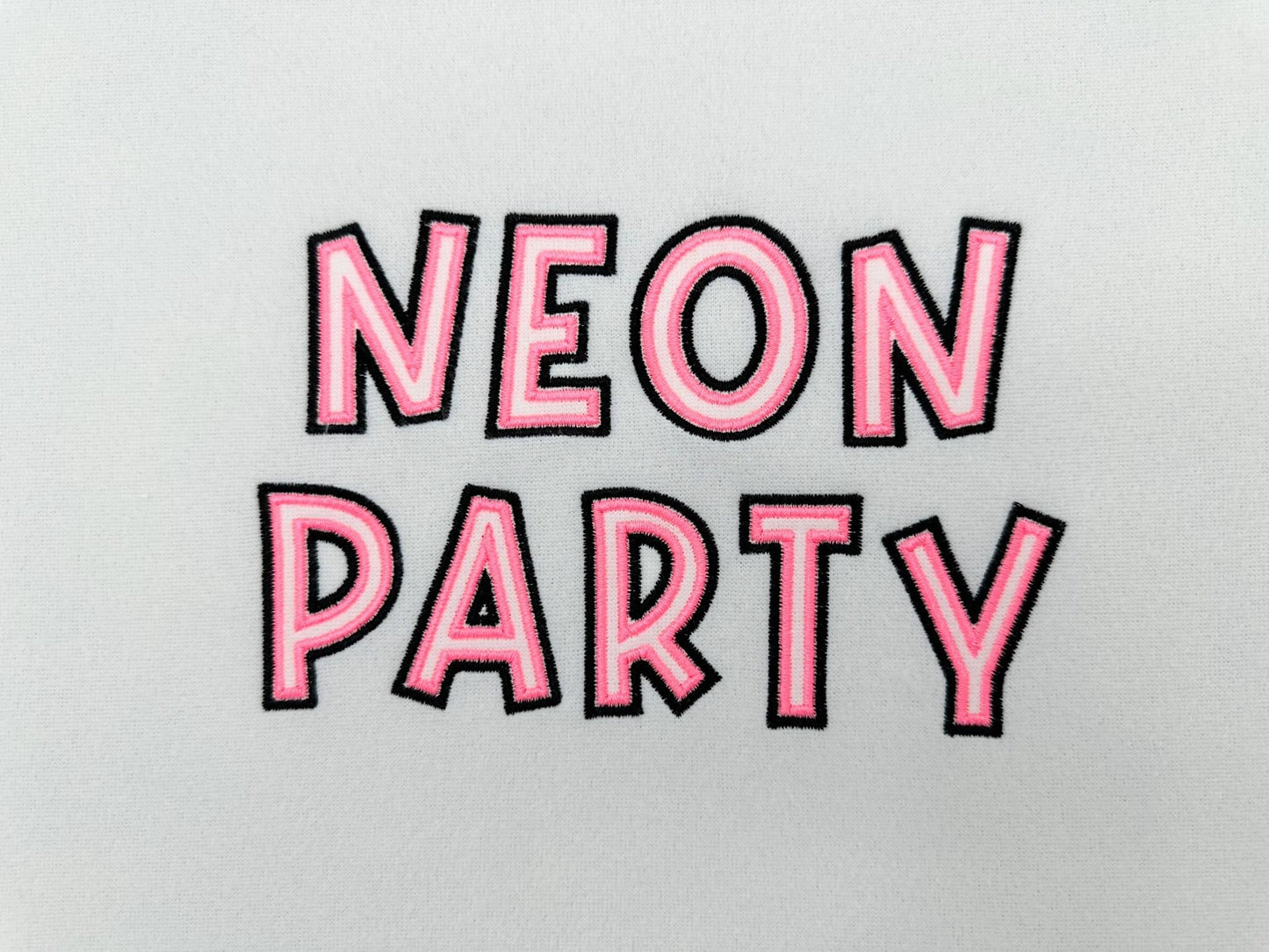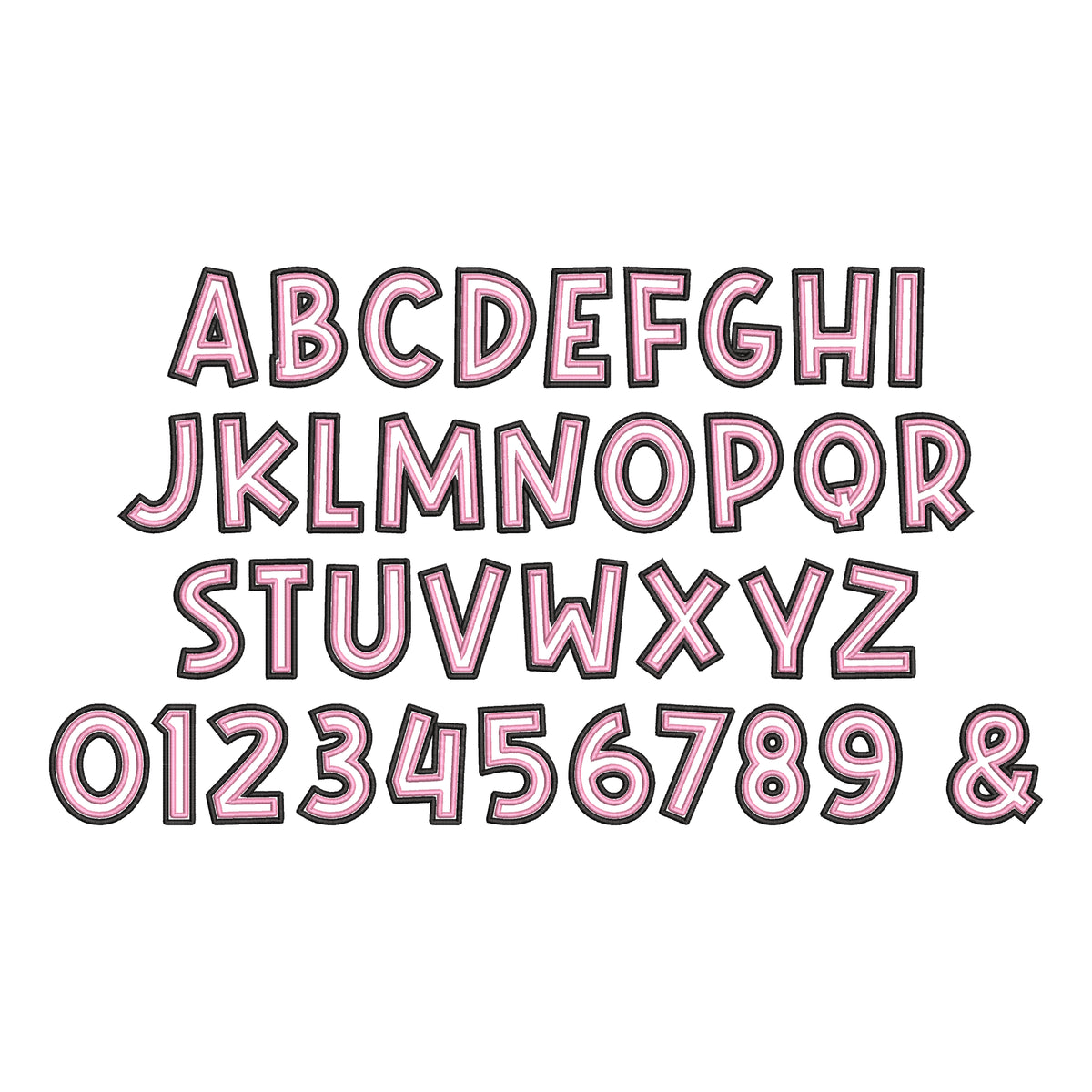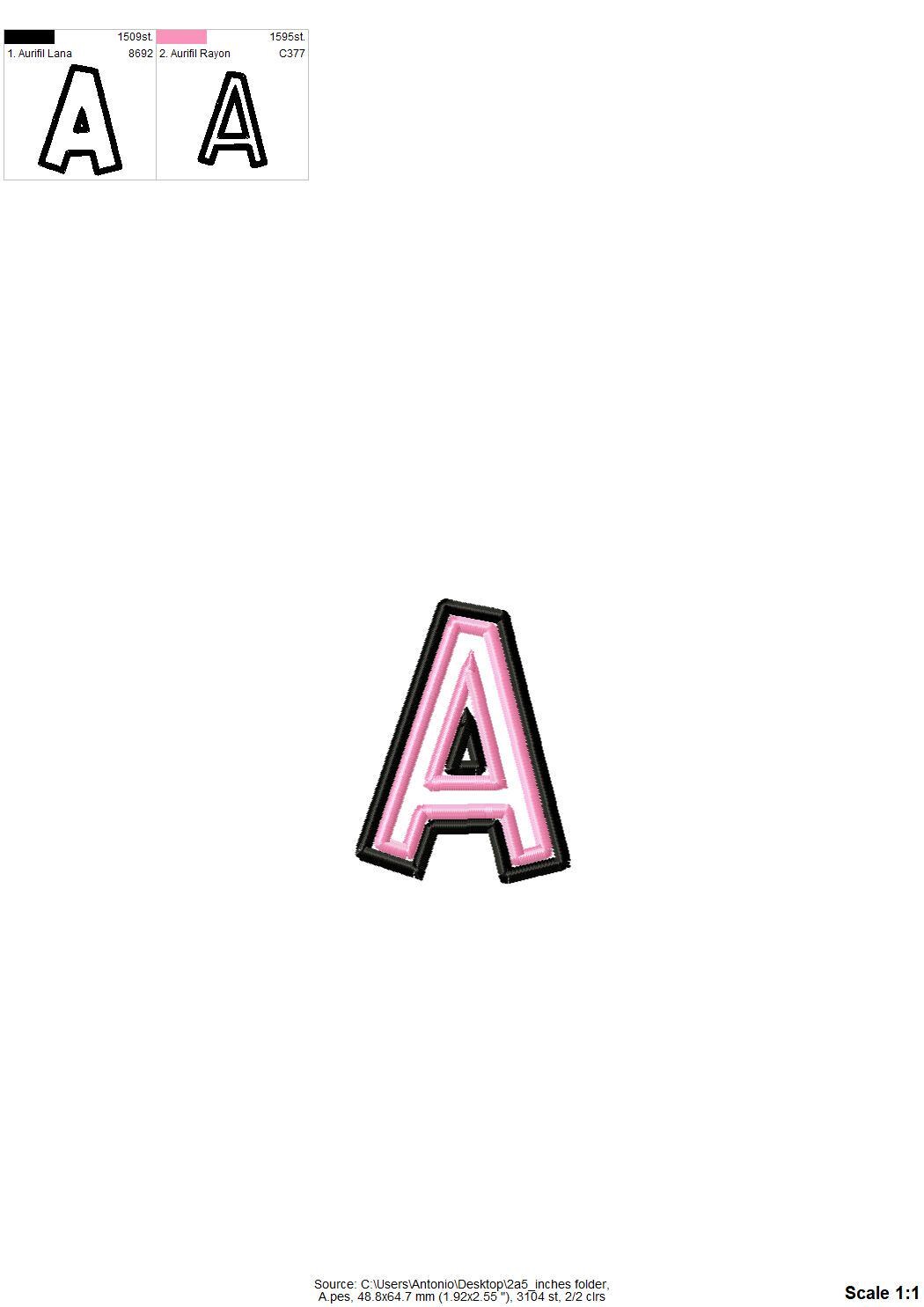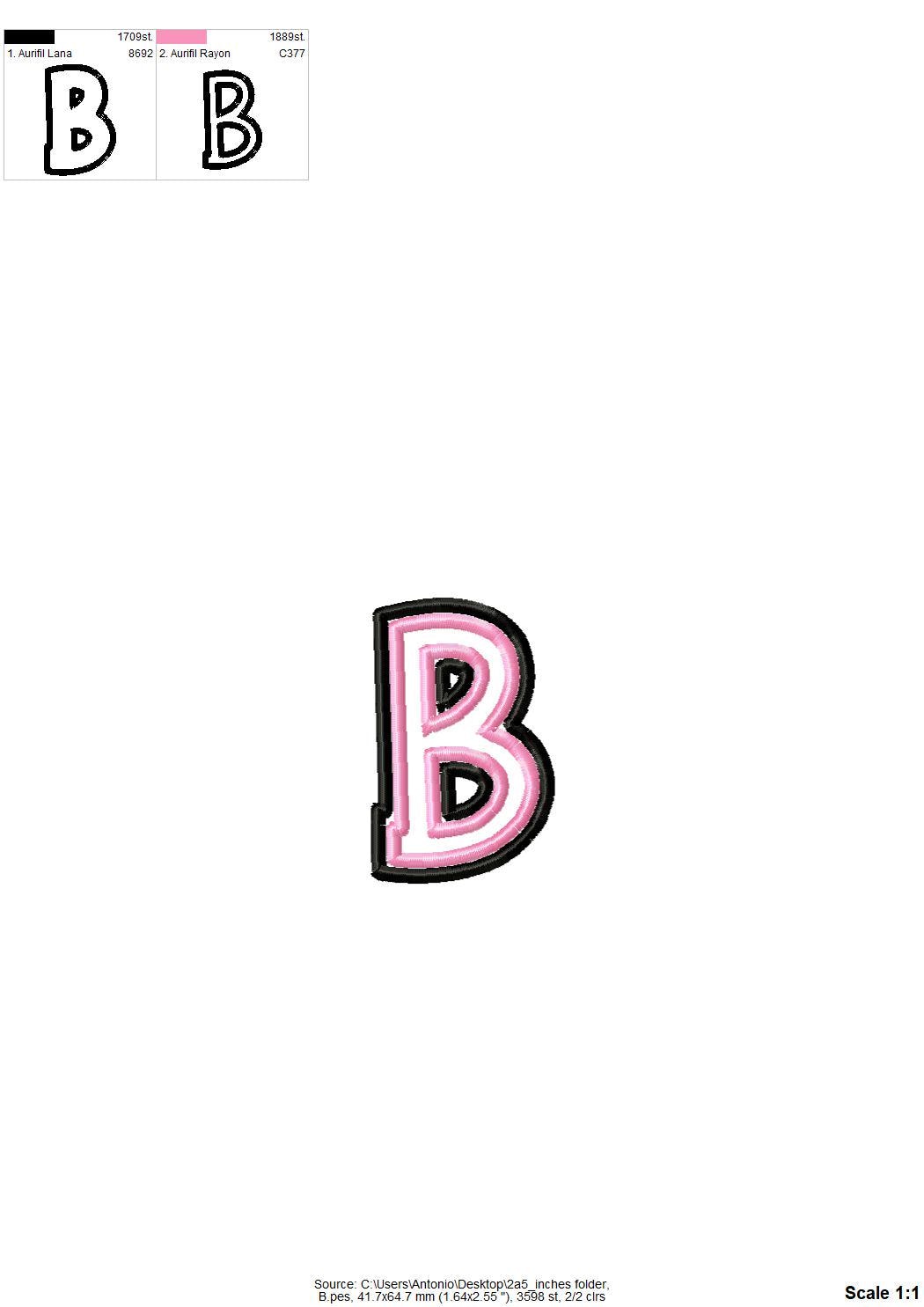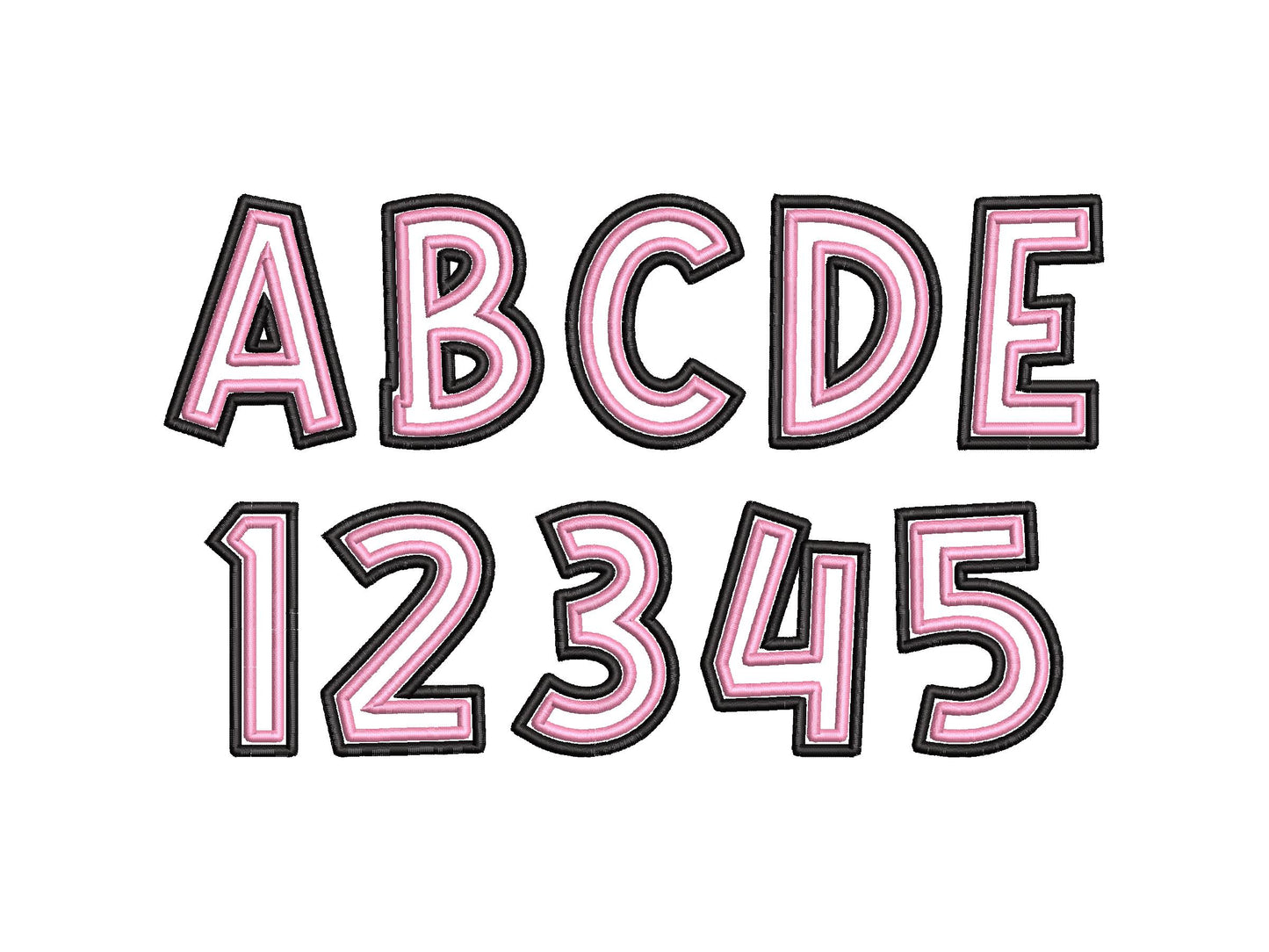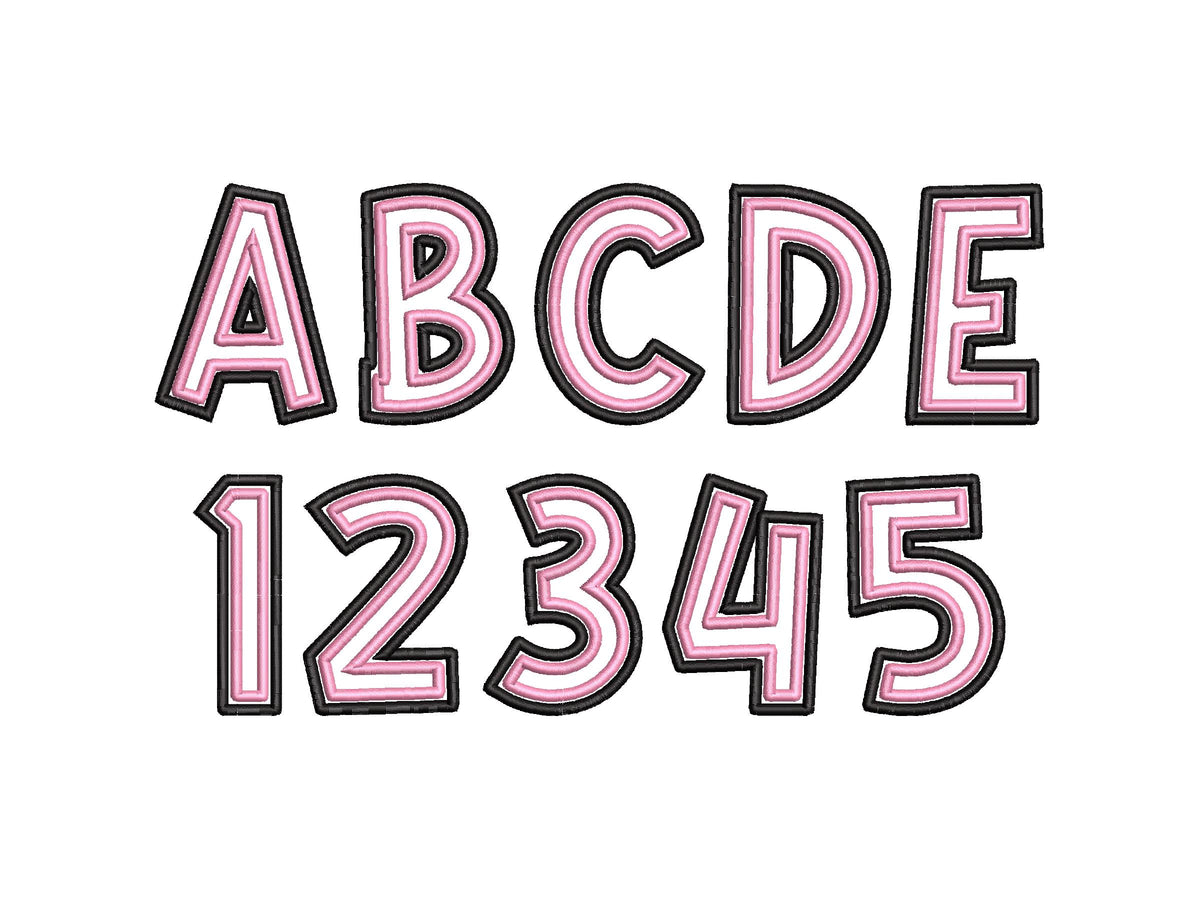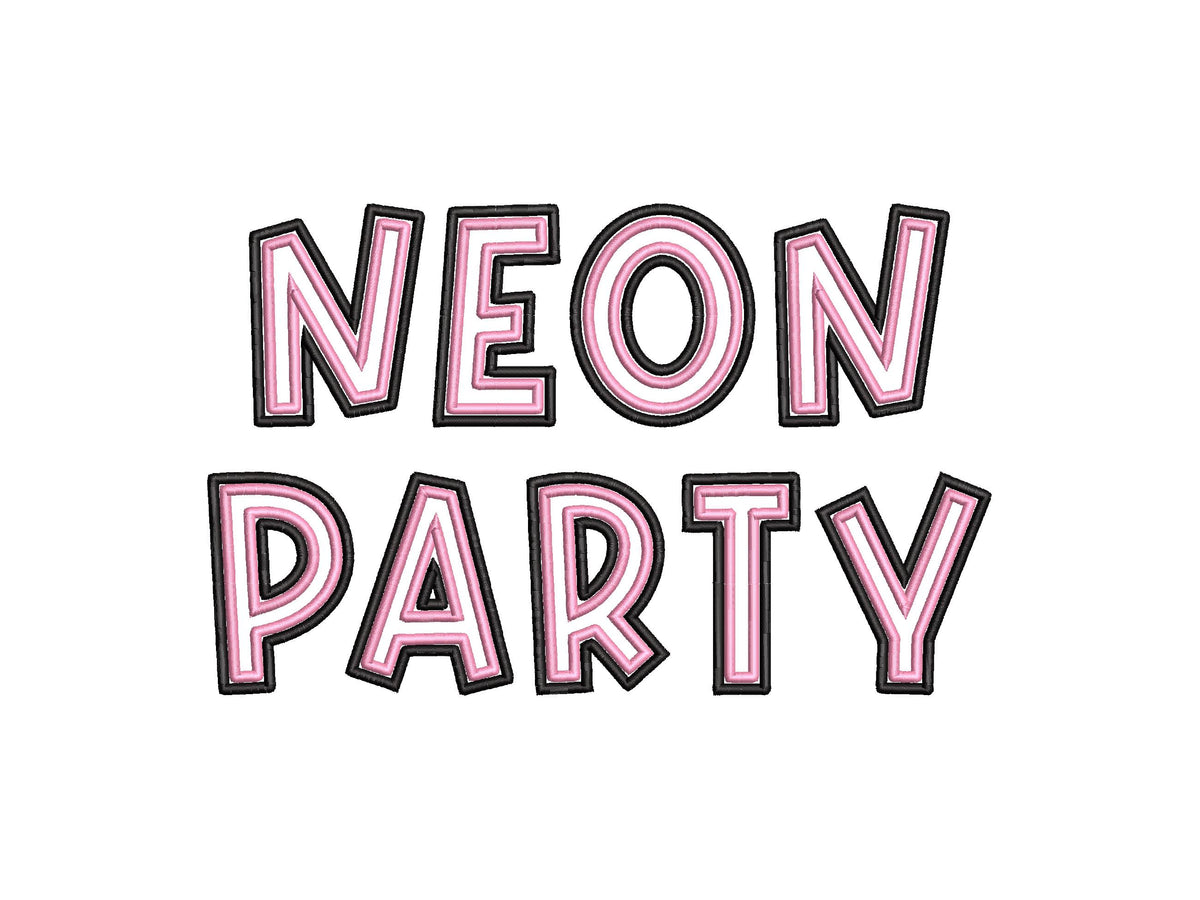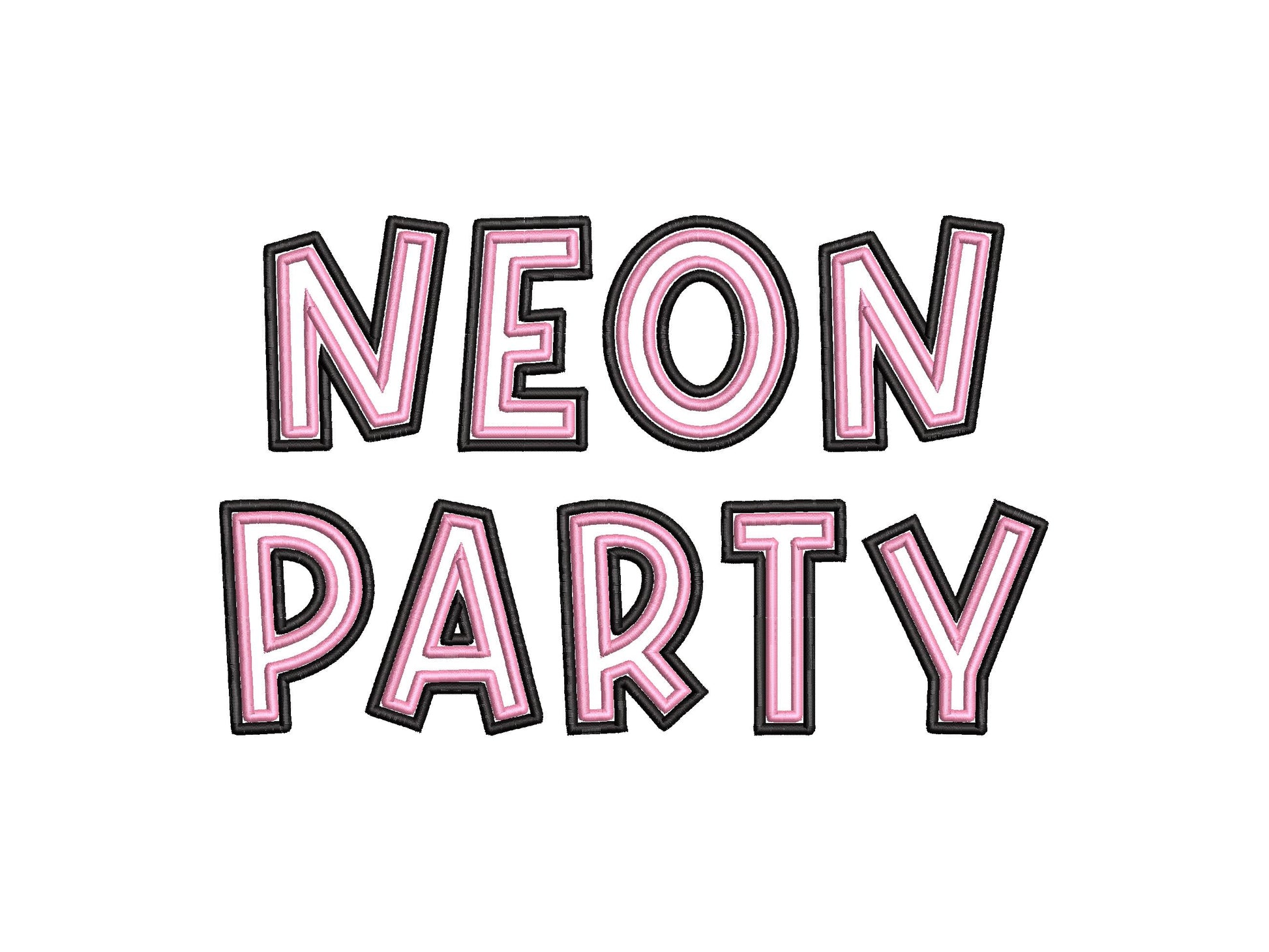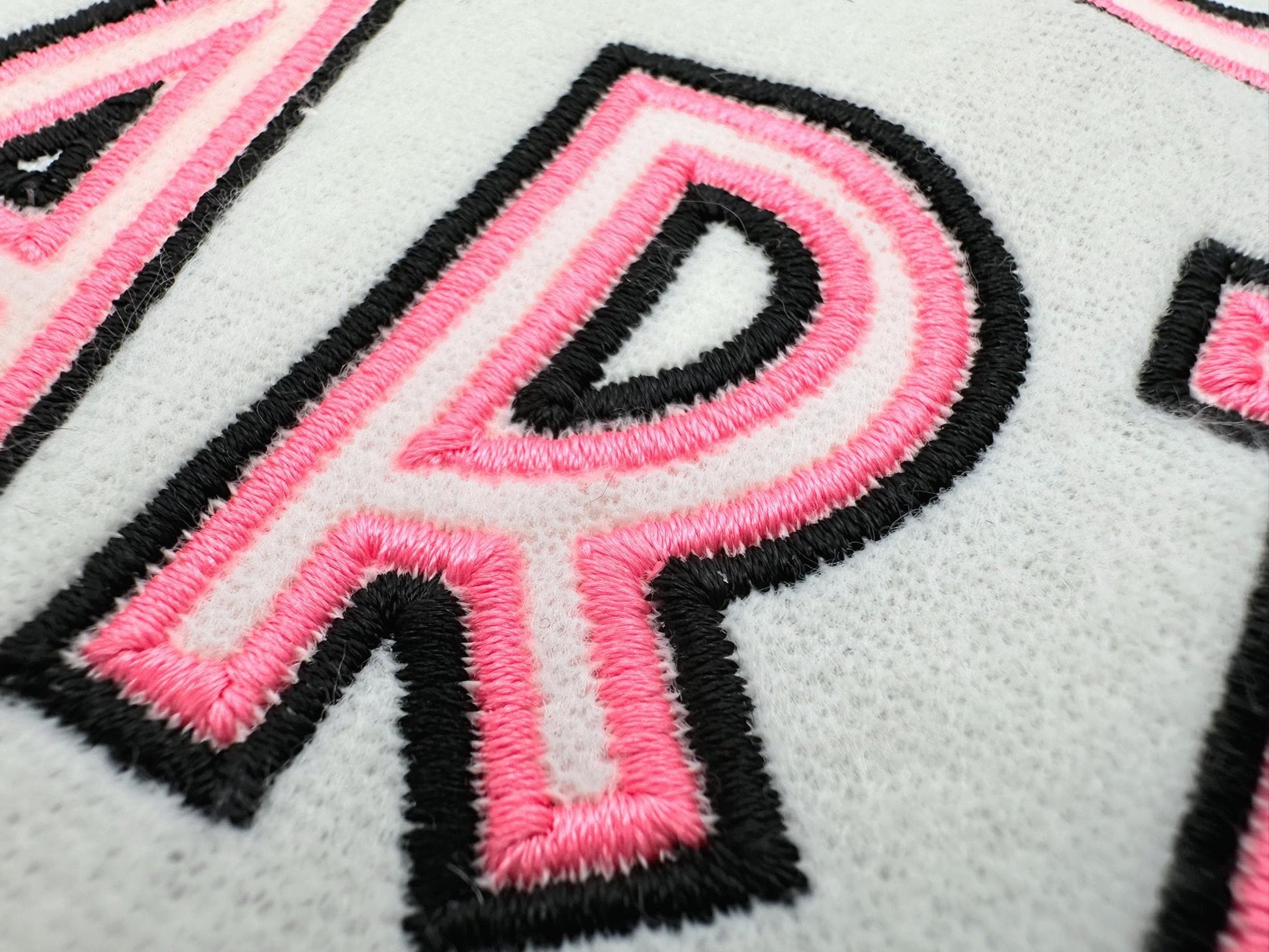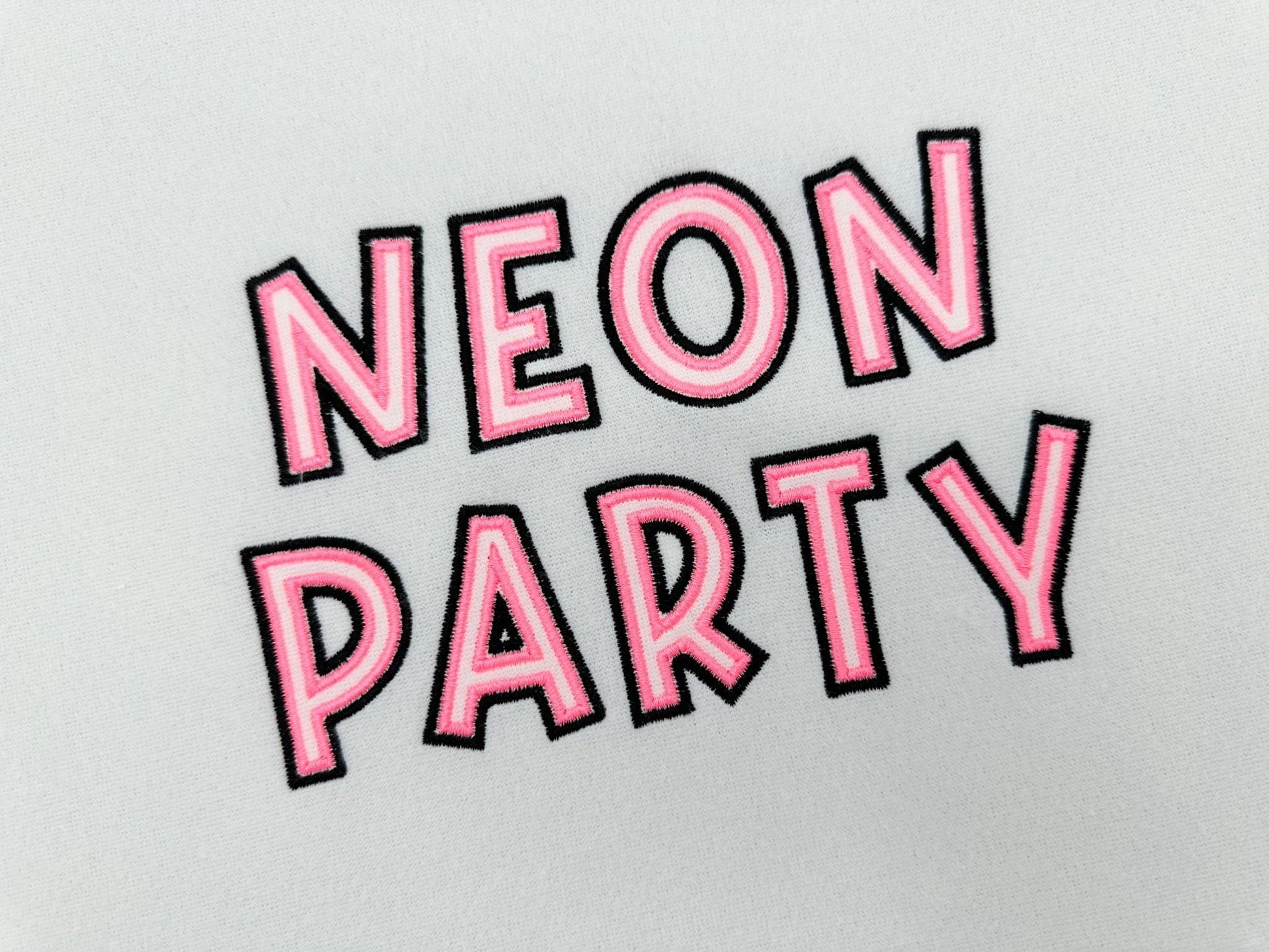
Neon Party Font 2 Outlines
Or click to open the linkA neon party font made of two satin stitch outlines. Bright and quick for party shirts, names and birthday gifts.
The letters come in six sizes: 1.7, 2.1, 2.5, 3, 3.3 and 4 inches. Two parallel satin stitch outlines give a neon sign look. Includes uppercase letters A to Z, numbers 0 to 9 and an ampersand.
- Neon double outline font, satin stitch
- Uppercase A to Z, numbers 0 to 9, ampersand
- 6 sizes, 1.7 to 4 in